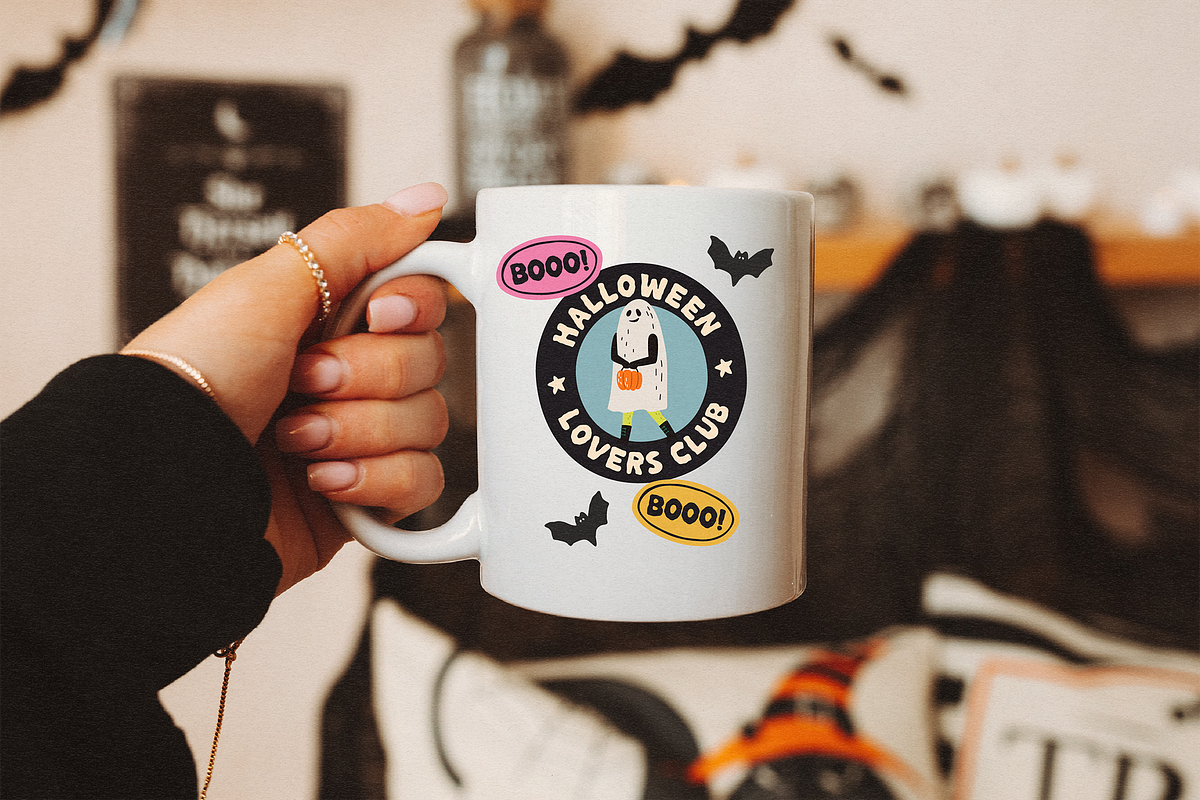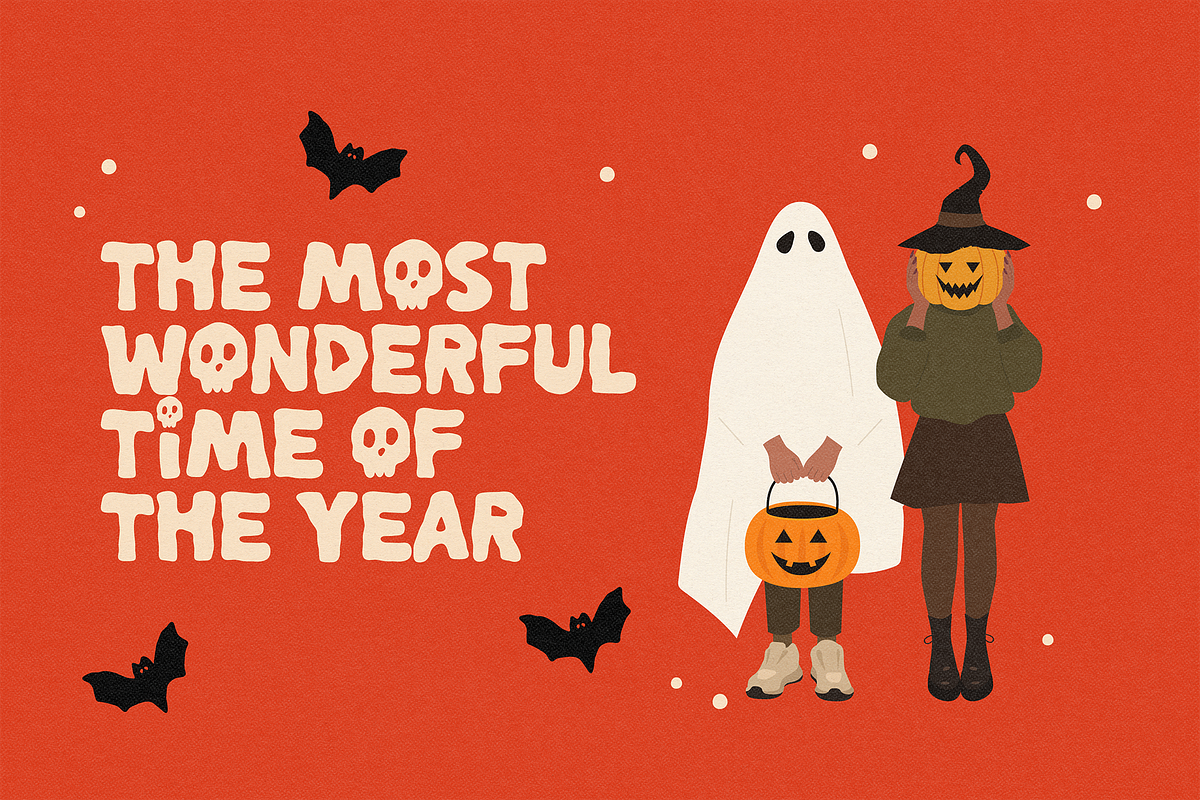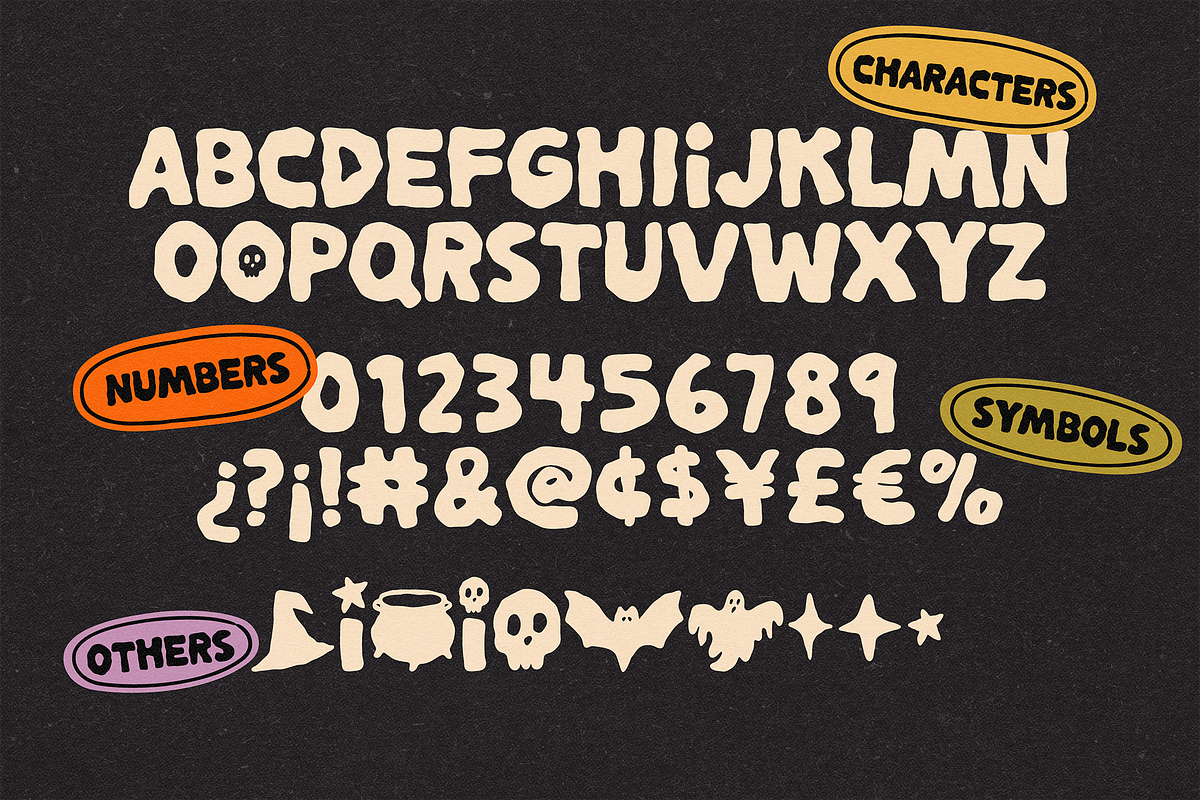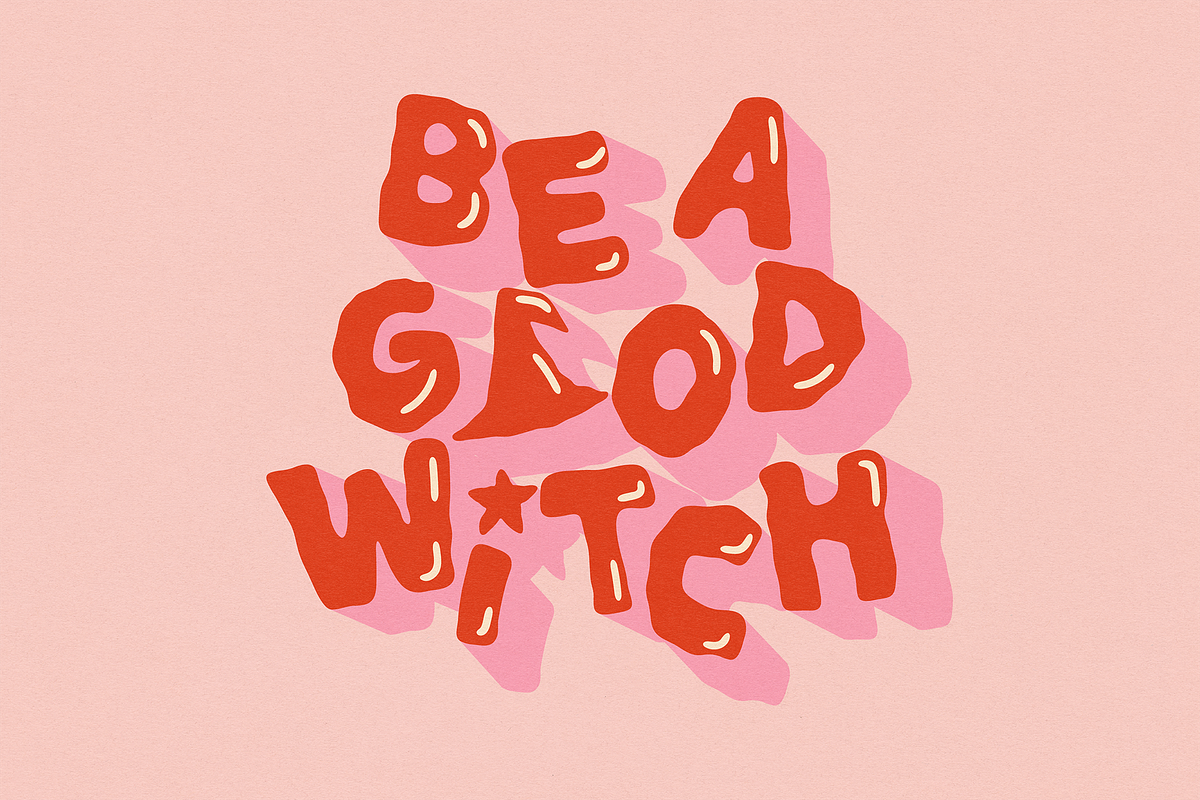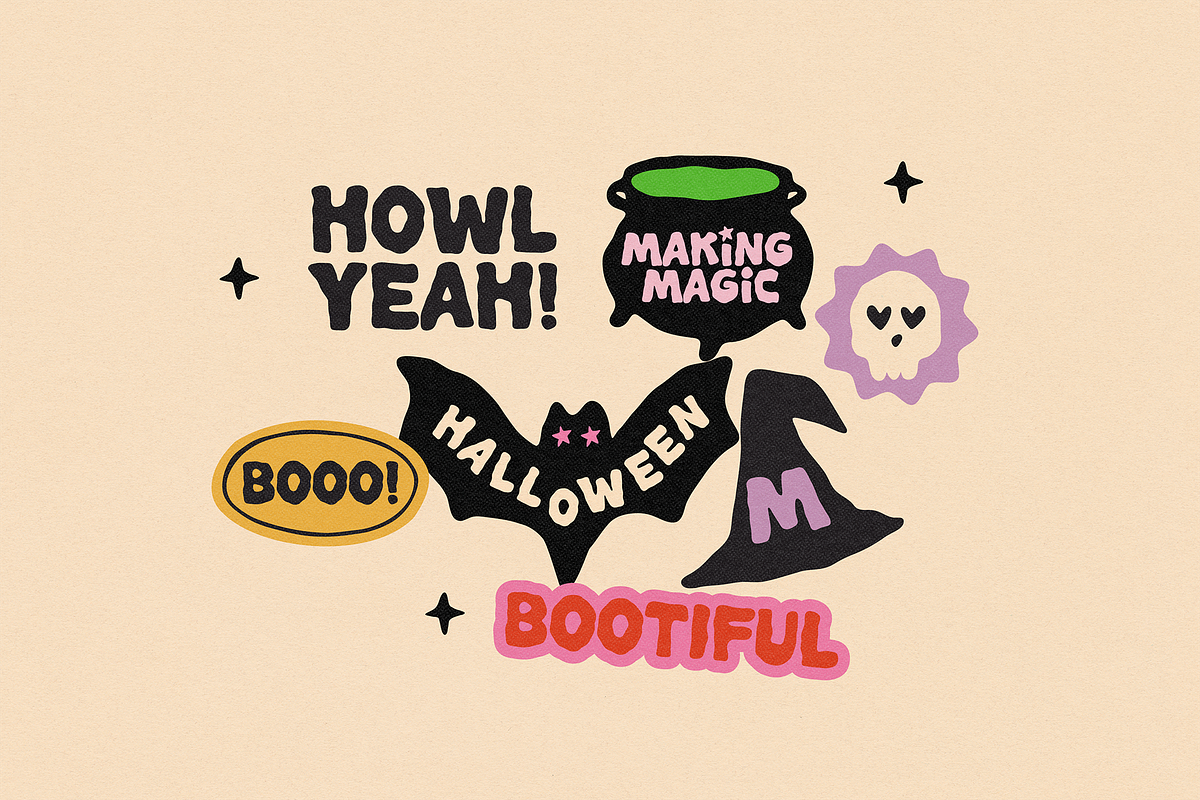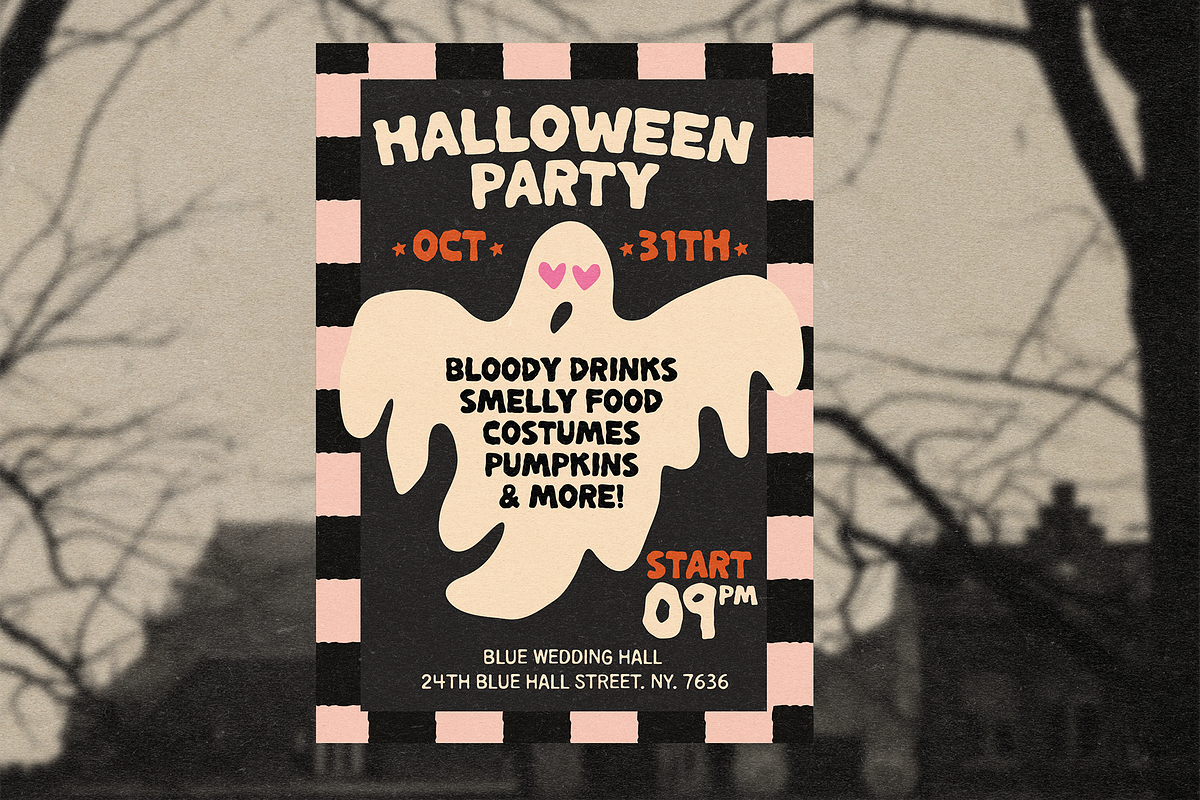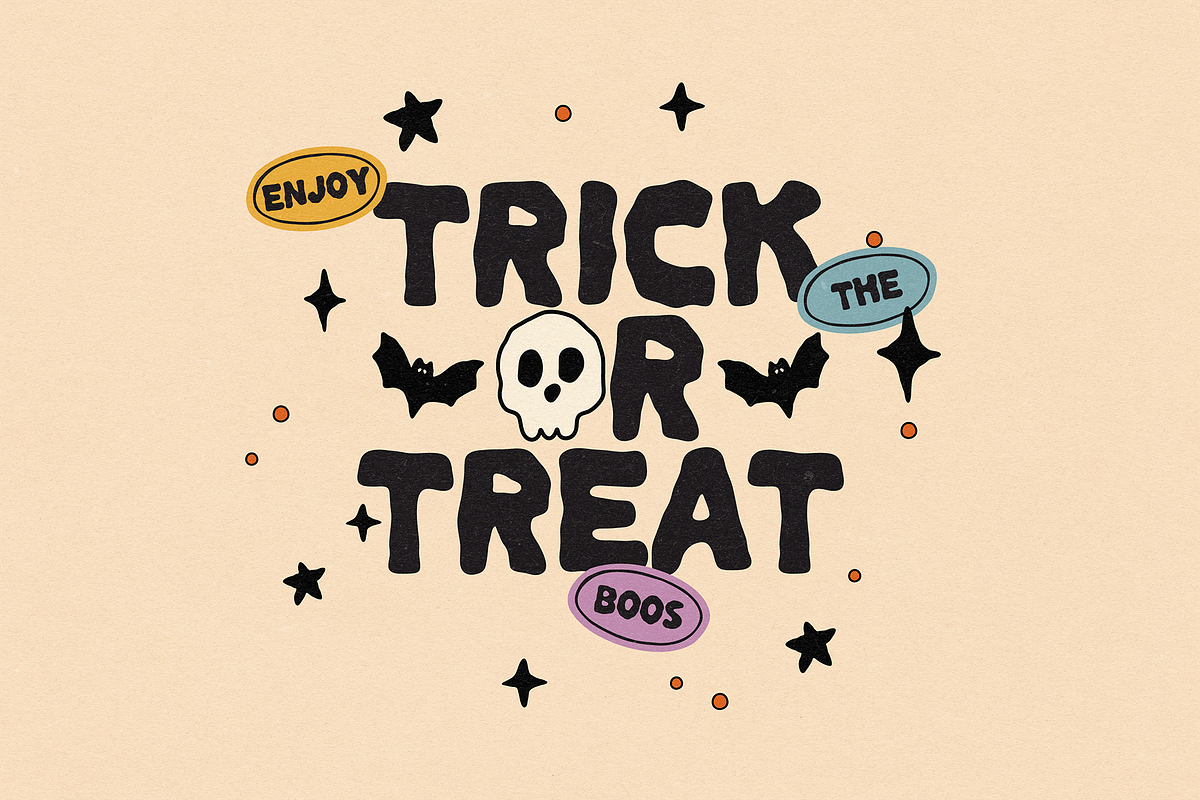
HELLO OCTOBER | SPOOKY FONT
HELLO OCTOBER – A Spooky Font Get ready to add some spooky charm to your designs with Hello Halloween, a fun and imperfect handwritten font made especially for the Halloween season! 🎃👻
This unique typeface is filled with handmade, messy strokes that give it a playful “spooky but cute” vibe. Perfect for posters, titles, party invitations, stickers, quotes, labels, and any project that needs a Halloween touch.
But that’s not all! this font also comes with extra spooky elements like a cauldron, witch hat, ghosts, bats, and more to help you design magical and fun Halloween elements without being too scary or gory.
To make your designs even more special, Hello October includes alternate letters (like “i” and “o”) that let you customize your text with extra flair.
🎃 Use the 16 symbols included to make spooky/cool compositions.
🎃 If you’re having a hard time spotting the symbols, here’s the list so you can just copy and paste them :)
- Left Curly Bracket { – Witch hat
- Right Curly Bracket } – “i” with star
- Left square bracket [ – Cauldron
- Right square bracket ] – “i” with skull
- Bar symbol | – Ghost (regular eyes)
- Registered symbol ® – Ghost (star eyes)
- Currency symbol ¤ – Ghost (heart eyes)
- Less symbol – Ghost (regular eyes)
- Greater symbol – Ghost (heart eyes)
- Backslash – Skull (star eyes)
- Bullet symbol • – Star
- Period centered symbol · – Shine 1
- Copyright symbol © – Shine 2
- Logical not symbol ¬ – Bat (regular eyes)
- Greater equal symbol ≥ – Bat (star eyes)
- Less equal symbol ≥ – Bat (heart eyes)